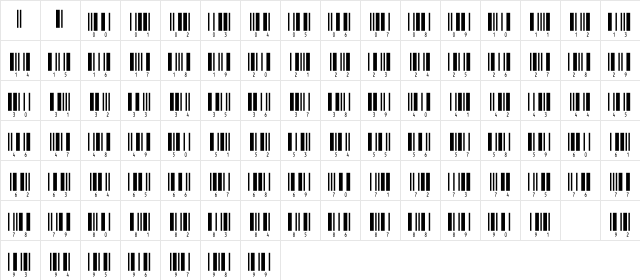
IntHrP24DlTt Normal
Design Context for IntHrP24DlTt Typeface
IntHrP24DlTt offers clean, dependable letterforms without strong stylistic allegiance, making it a practical choice for designers who need flexibility.